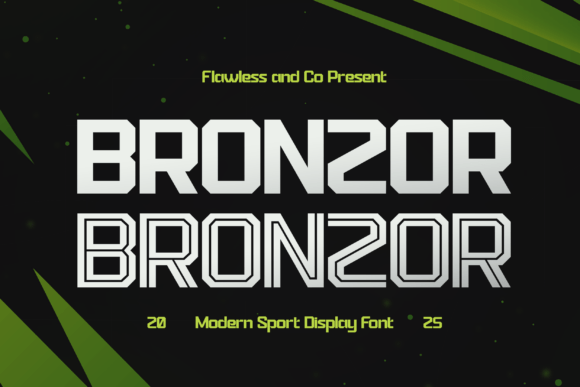
The Ultimate Font for Sports and Fitness Designs: Bronzor
Have you ever been in the middle of a design project, and suddenly, you’re stuck on finding the perfect font? I recall working on a sports branding project, and my client requested a font that exuded confidence, energy, and a sense of competition. After hours of searching, I stumbled upon Bronzor, a bold and powerful sport display font that instantly captured the essence of sportsmanship and competition. In this article, I’ll share my experience with Bronzor, its features, and how to make the most of it in your designs.
A Personal Review of Bronzor
What I Love About Bronzor
- ✨ Bold and powerful design: Bronzor’s sharp geometric edges and modern athletic vibe make it perfect for projects that demand confidence and action.
- ✅ Versatile: This font is ideal for various design projects, including team jerseys, posters, branding, and merchandise.
- 💯 Professional look: Bronzor adds a fearless and professional touch to any design, making it perfect for sports and fitness-related projects.
While Bronzor is an excellent font, there are a few things to keep in mind:
- 🤔 Legibility at small sizes: Bronzor is a bold font, and its legibility may suffer when used at very small sizes. It’s best to use it at larger sizes to maintain its impact.
- ⚠️ Overuse: As with any bold font, be cautious not to overuse Bronzor, as it may become overwhelming. Balance it with other design elements to create a visually appealing design.
A Practical Guide to Using Bronzor
- Experiment with OpenType features, such as glyphs and stylistic alternates, to add more personality to your design.
- Explore the OpenType panel to access glyphs, stylistic alternates, and other advanced typography features.
The Backstory of Bronzor
Bronzor was designed with the sports enthusiast in mind. Its creator aimed to craft a font that would capture the energy, strength, and competition found in sports. By combining sharp geometric edges with a modern athletic vibe, Bronzor was born – a font that’s both fearless and professional.
Q: What type of projects is Bronzor best suited for?
A: Bronzor is perfect for sports and fitness-related projects, such as team jerseys, posters, branding, and merchandise.
Q: Is Bronzor a versatile font?
A: Yes, Bronzor is a versatile font that can be used for various design projects, from sports branding to fitness campaigns.
Q: Can I use Bronzor in digital designs?
A: Absolutely! Bronzor can be used in both print and digital designs, making it perfect for a wide range of applications.